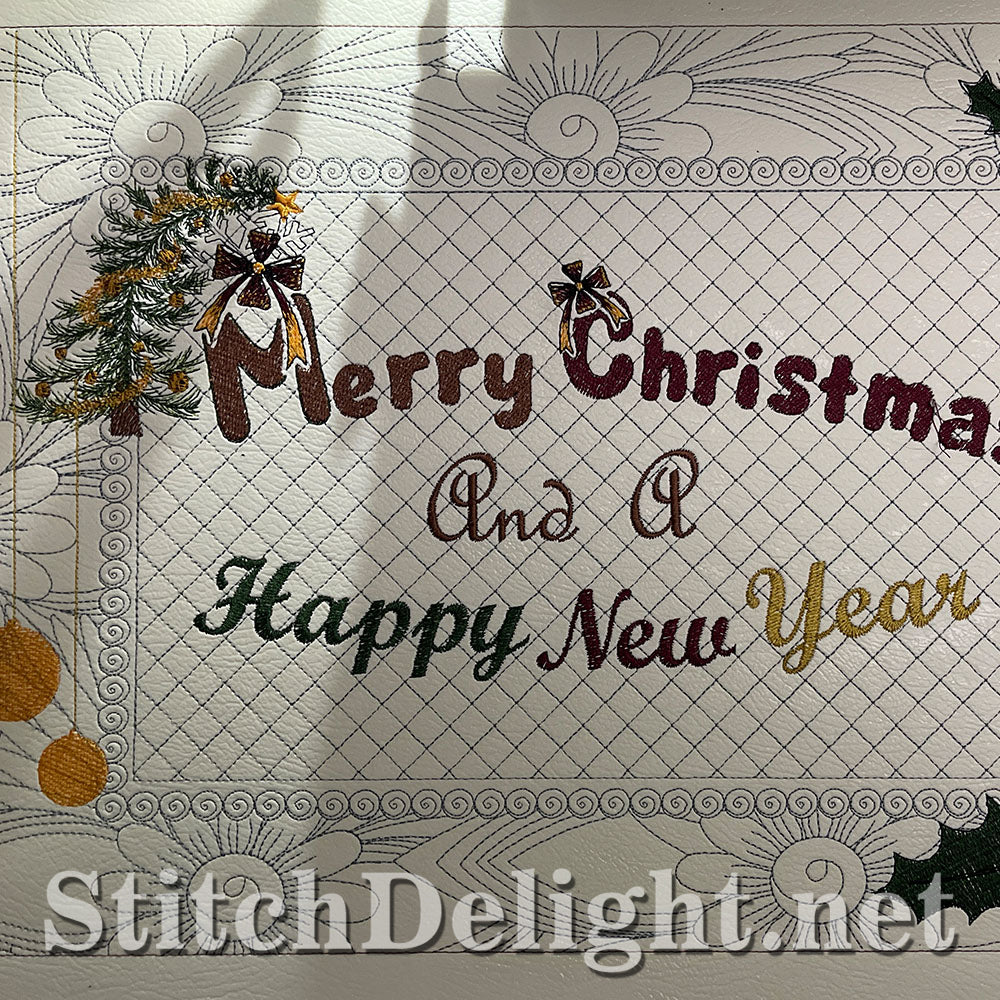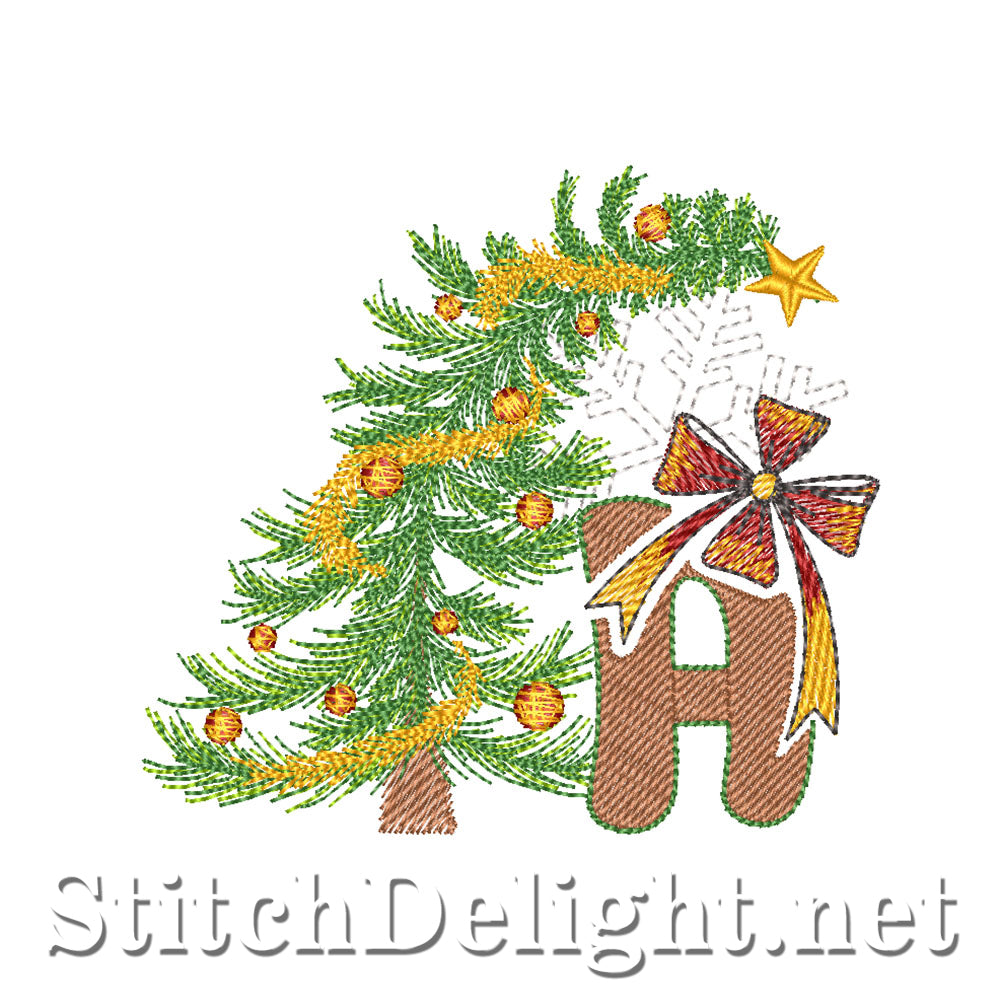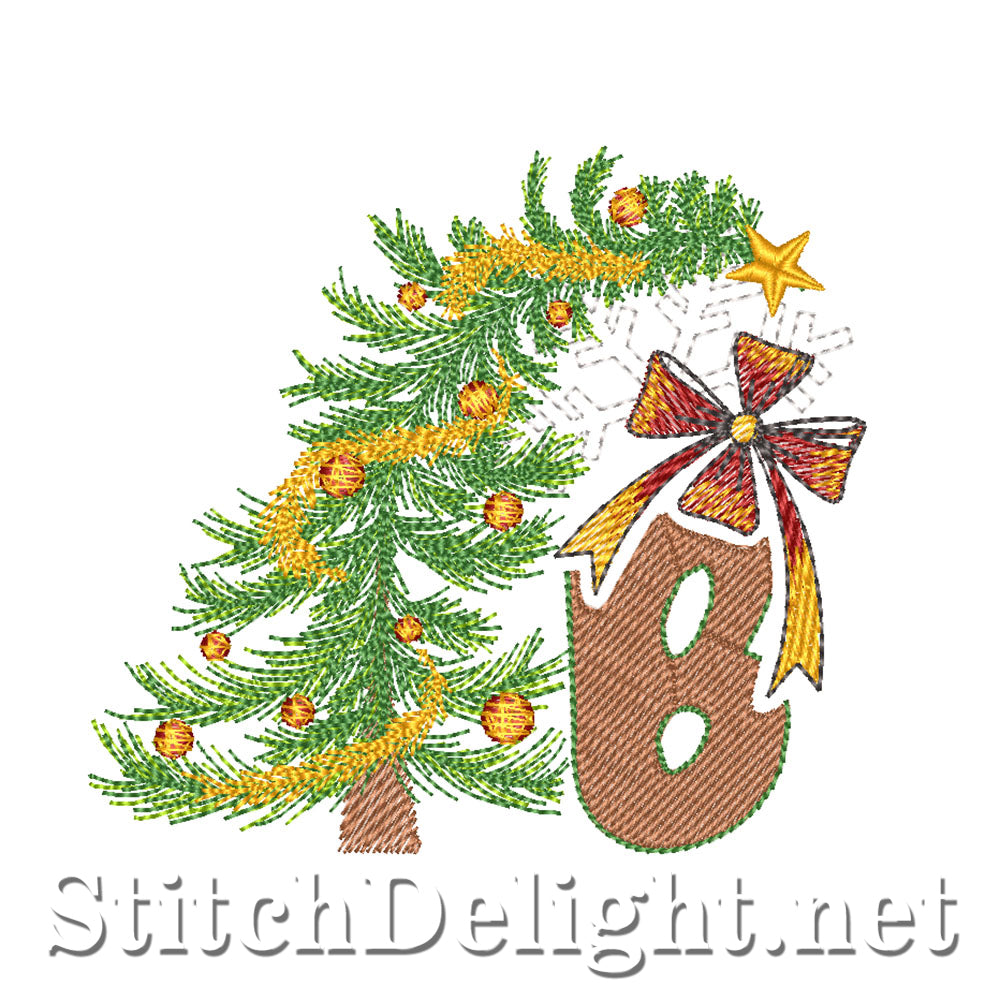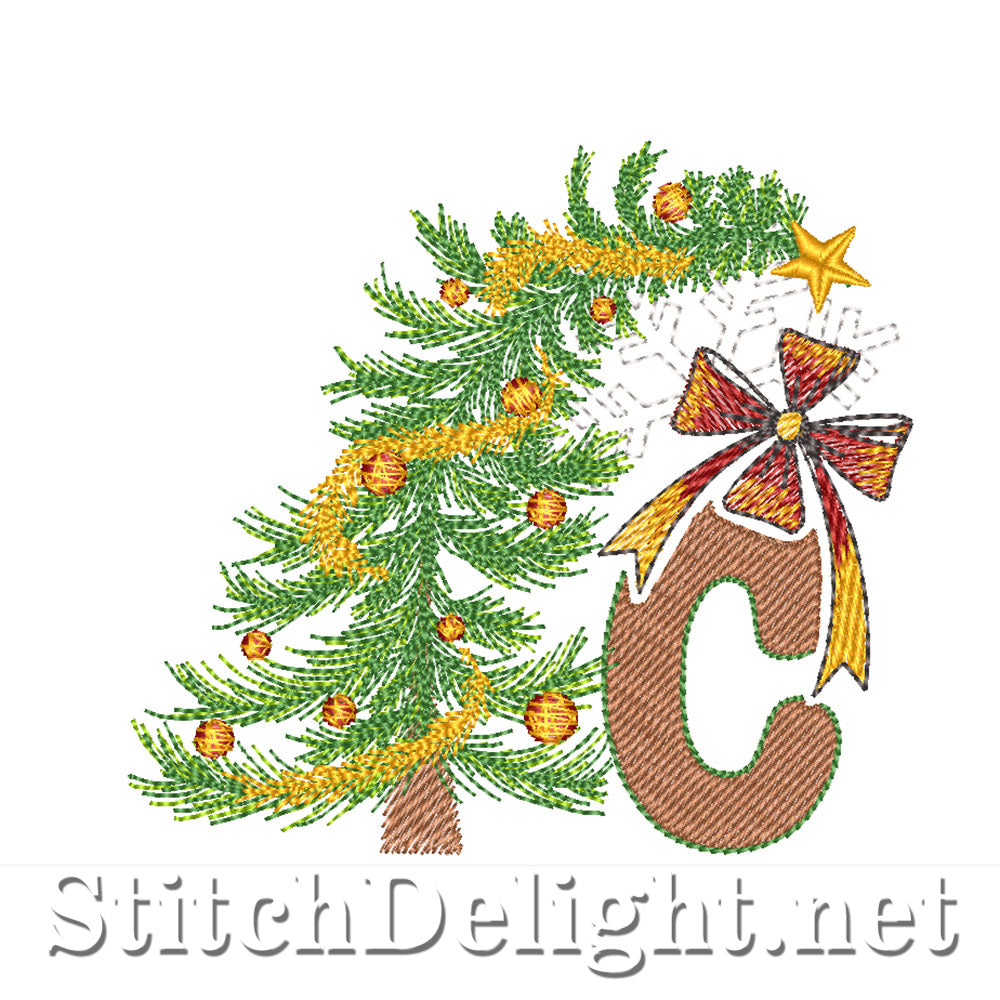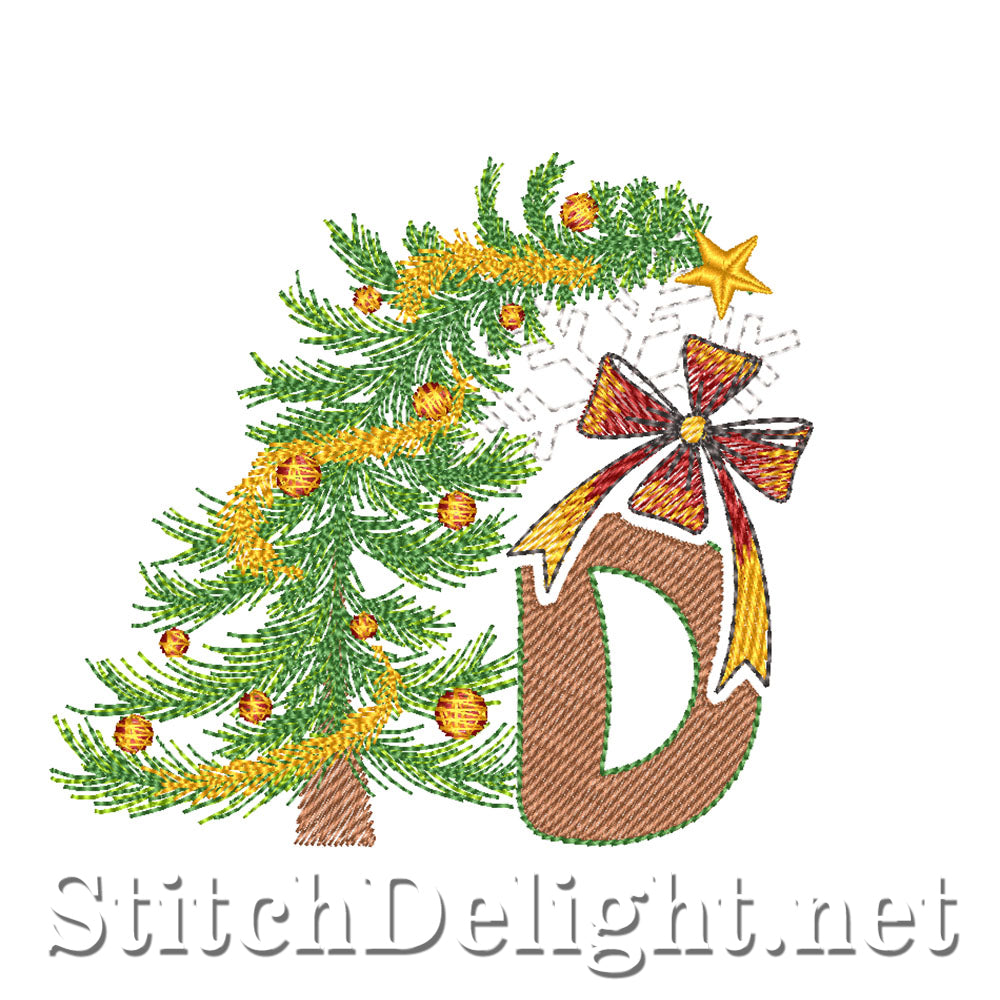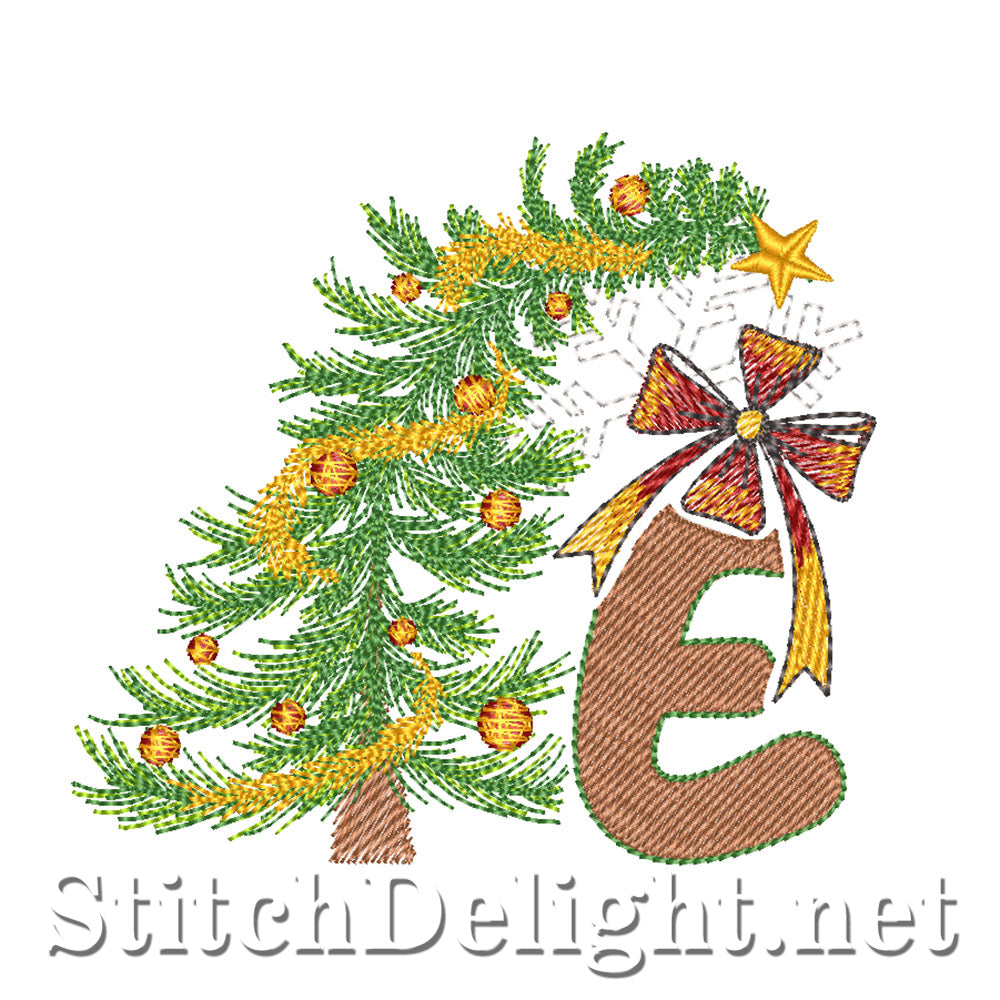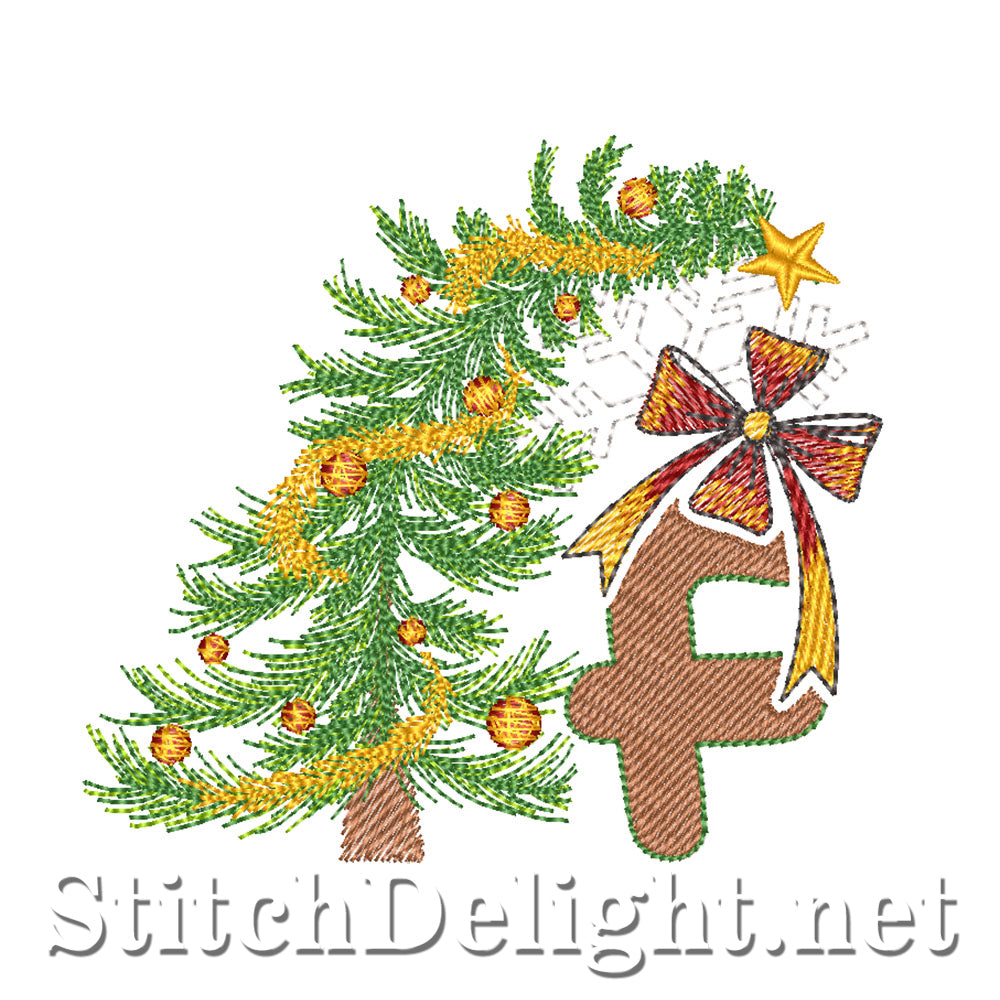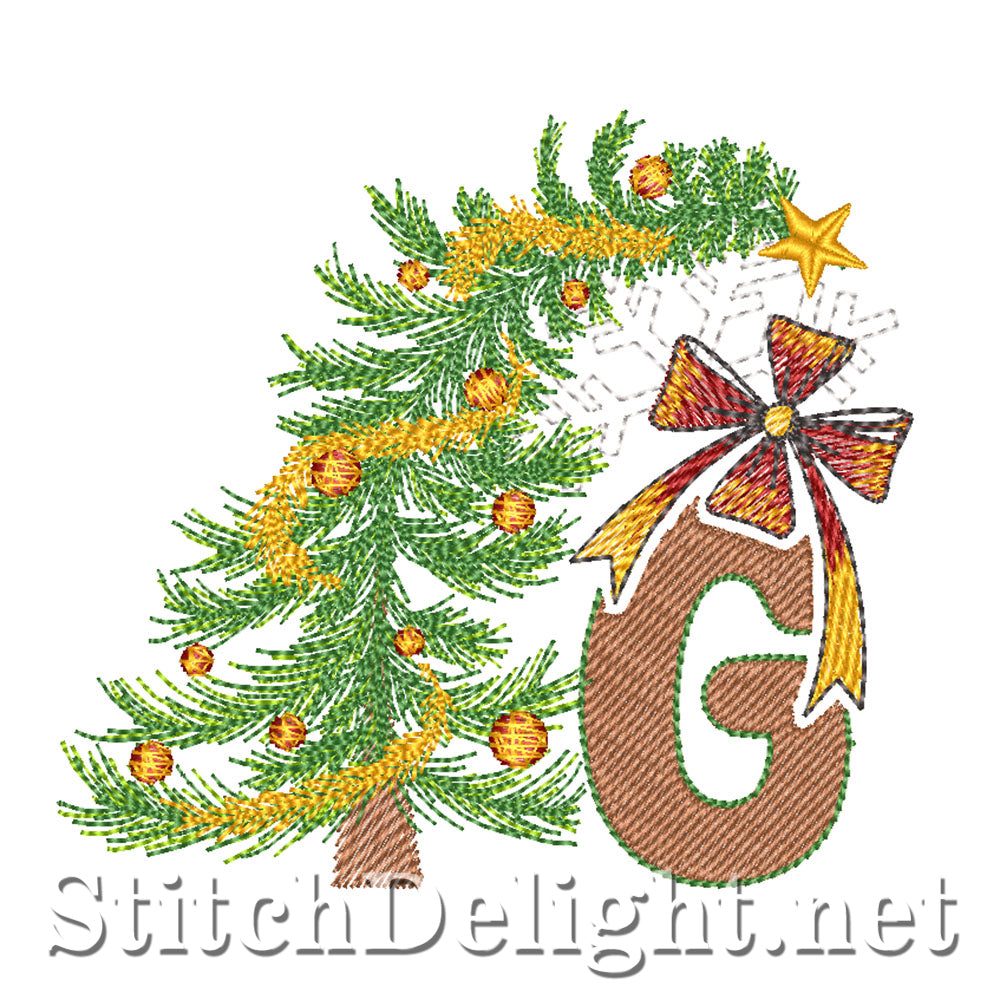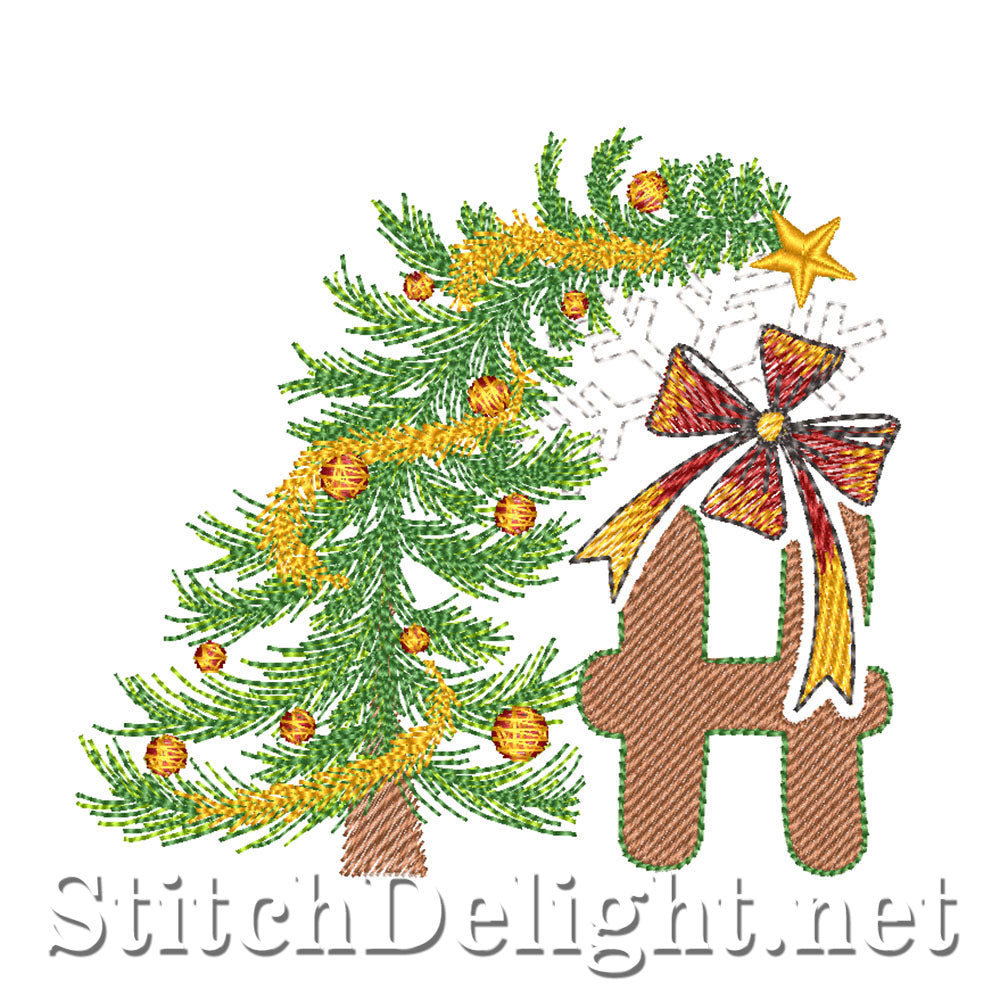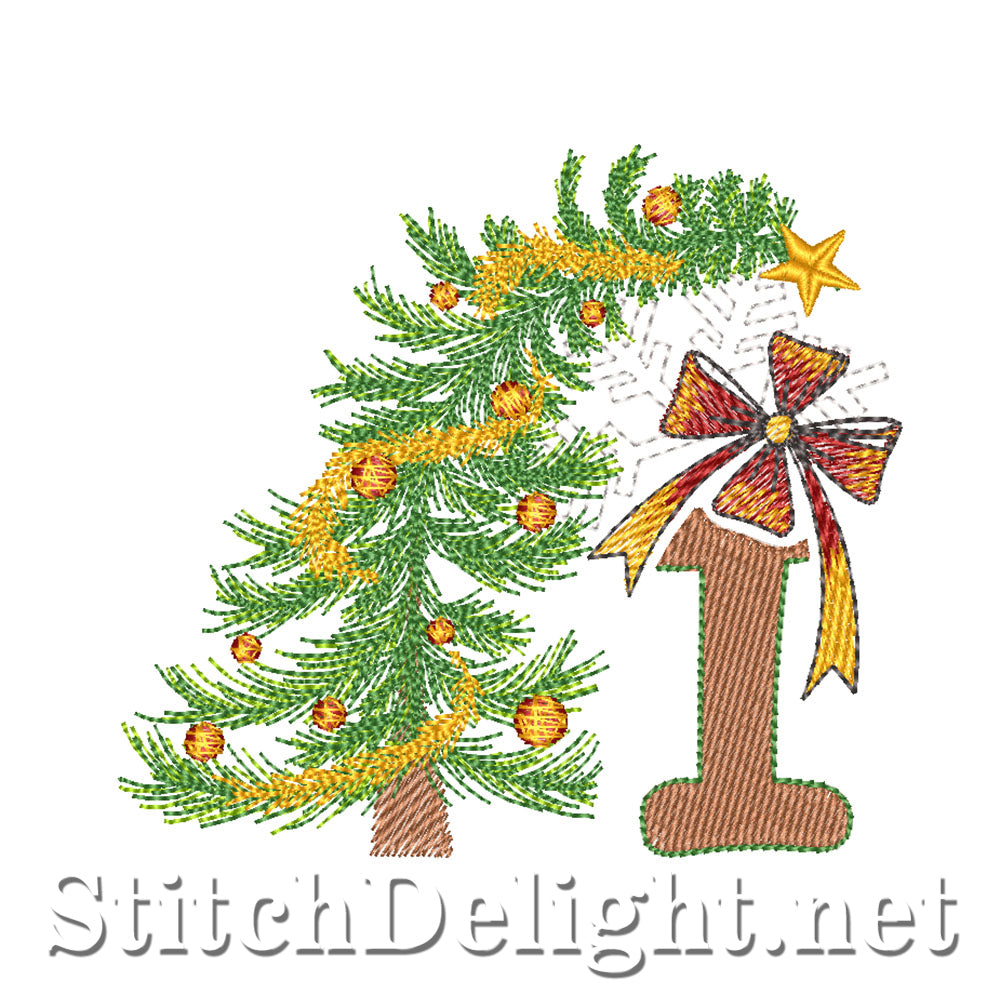
SDS3254 Christmas Font
Dine This Christmas with this Adorable whimsical Christmas tree font on a place mat or decorate your gifts with a project featuring this font, this font fits in a 4x4" hoop and is suitable for all fabric types using the correct stabilizer, if you plan on stitching it on a towel a knockdown stitch is recommended.
Matching Font for this font is SDS3253 Festive Font
This font has an average height of 3.8"